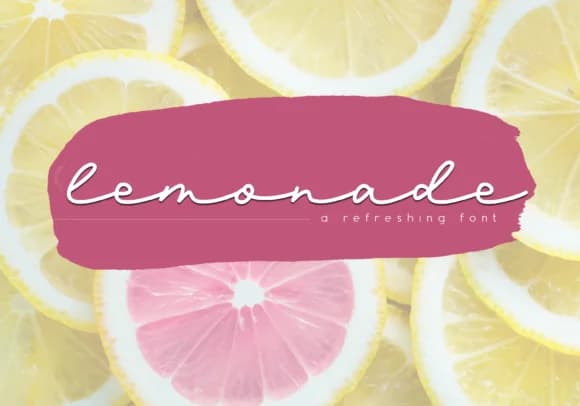
1 / 6About Lemonade Font
That organic, hand-sketched warmth you get when someone sits down with a pen and writes something genuinely thoughtful is exactly what Lemonade Font by KA Designs captures. Its letterforms flow with natural energy that reads as personal without crossing into difficult or fussy territory, making it work equally well in formal and casual contexts. The friendly character never shouts, even when it becomes the main attraction in a design.
This font shines on wedding invitation suites where you want real personality without pretension. Product labels for indie makers on Etsy or at farmers markets benefit from its warmth, as do bakery menus and cafΓ© chalkboard designs. Event signage and small-batch merchandise packaging feel right with this handmade quality, which signals care and genuine effort. Greeting cards gain warmth from the script without the letterforms overwhelming the message itself. Social media graphics and simple branding applications also work well with Lemonade's approachable, friendly character.
Graphic designers and creative entrepreneurs working on their own projects will find Lemonade adds genuine personality whenever a design truly needs to feel handmade and human. It's one of those scripts that works across a range of scales, from small package labels to large display work. You can find it on Creative Fabrica, making it straightforward to download and use across all your work.
Lemonade Font is a script font that shines as a display or heading face. Pair it with a clean sans-serif or serif font for body text β the contrast creates a clear hierarchy while the two styles stay balanced and easy to read.
Lemonade Font
by KA Designs